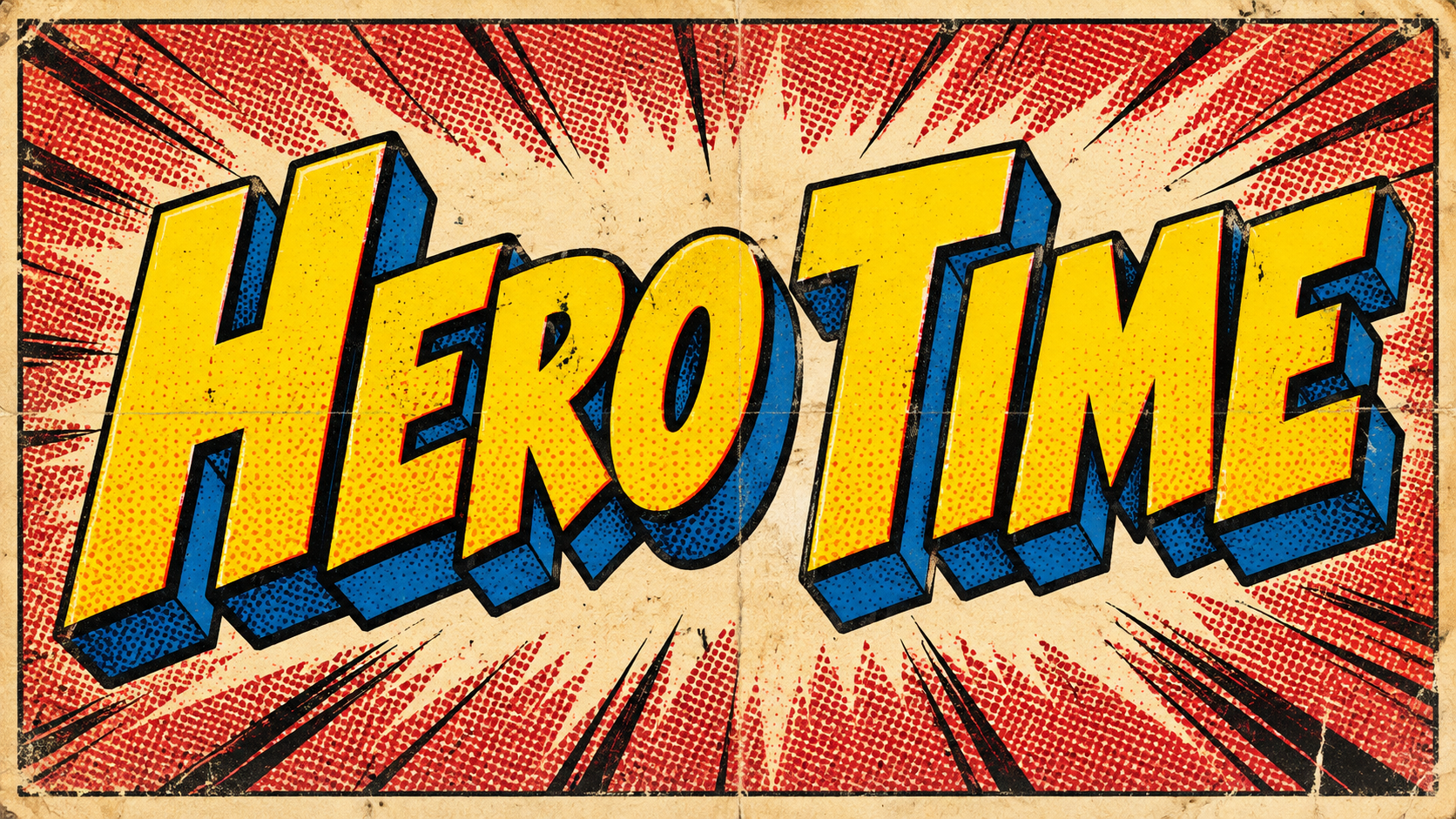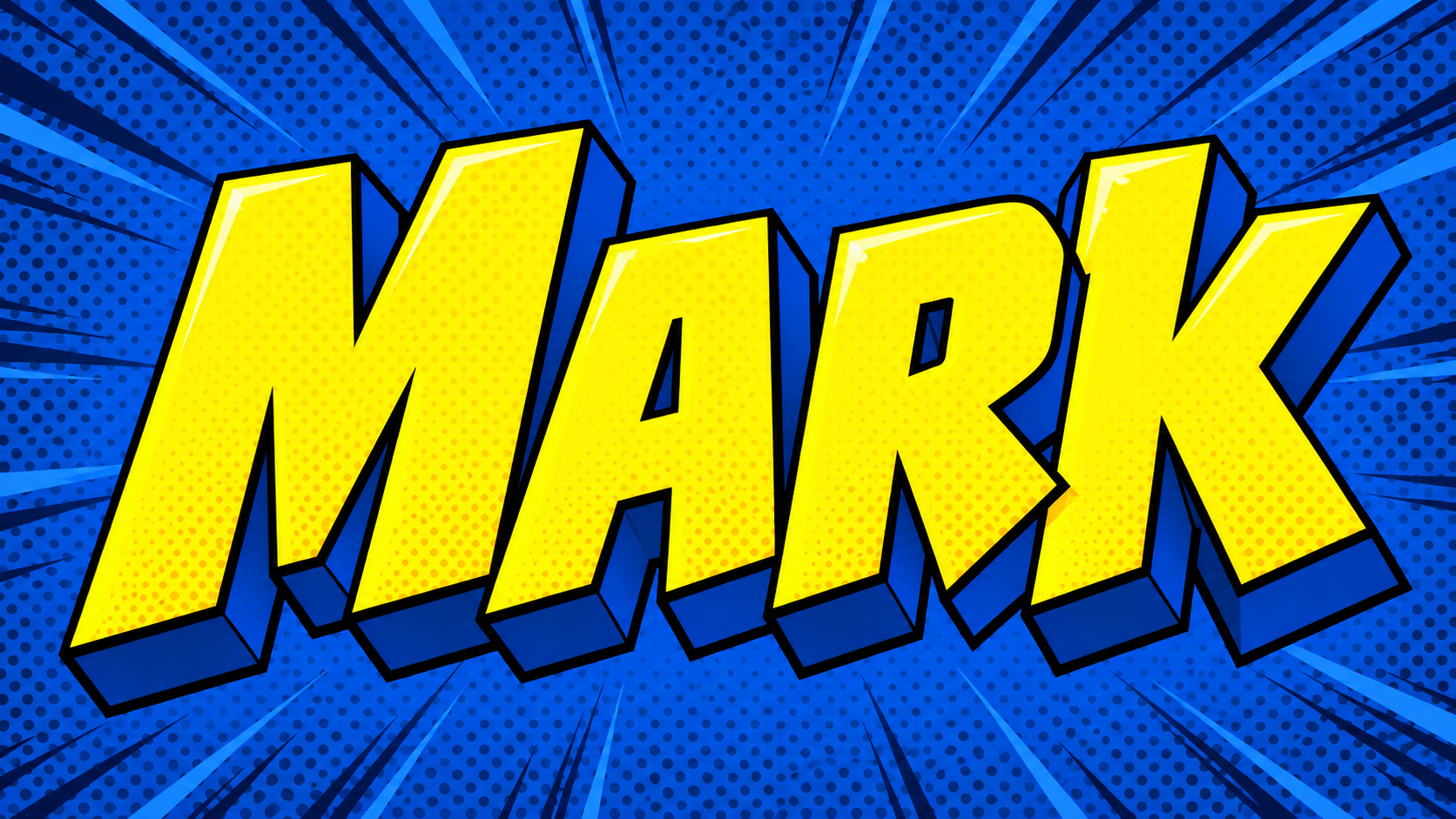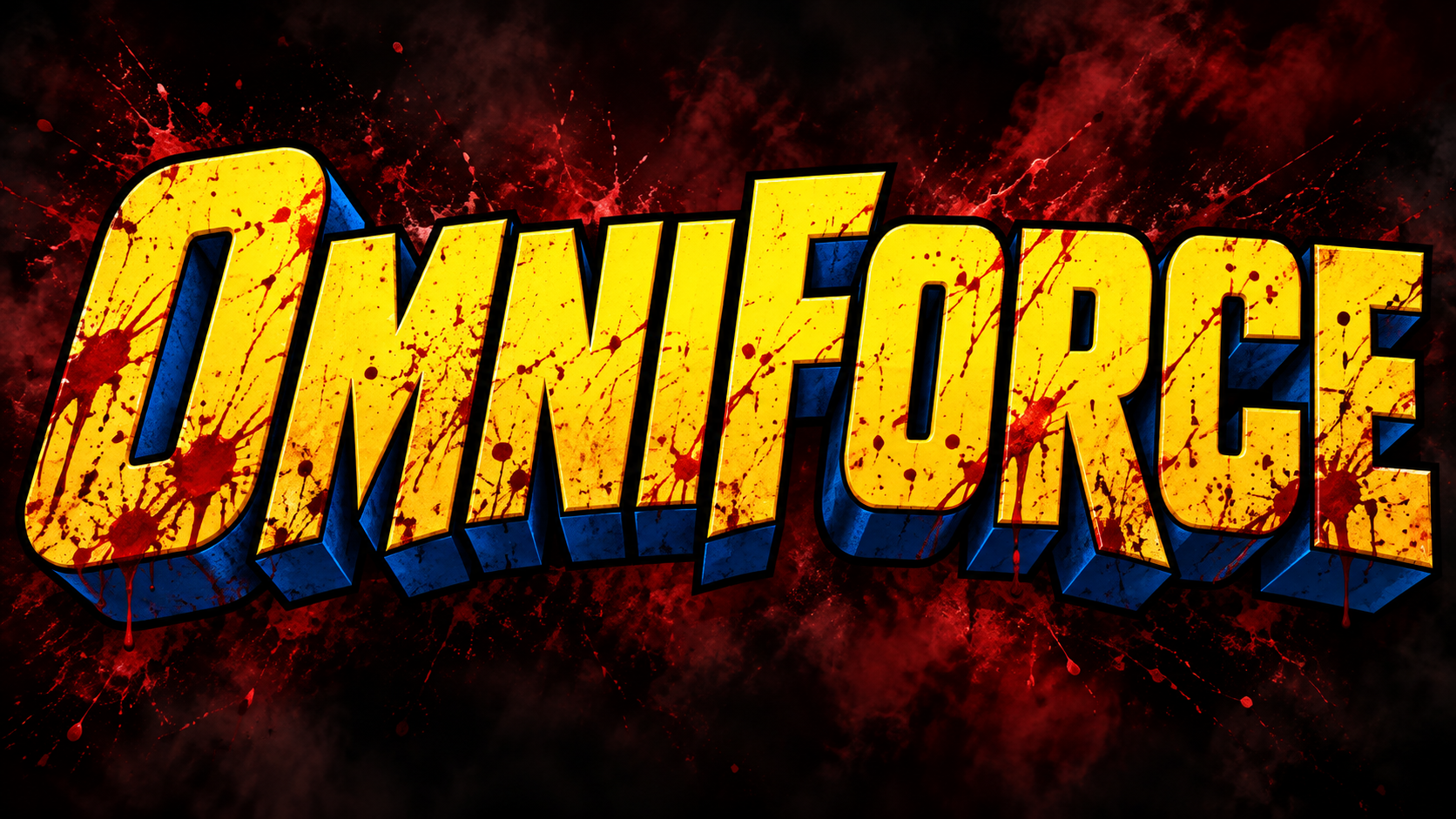
Invincible Font Generator
Blocky, tilted comic-hero capitals in yellow and blue, inspired by the animated series title. Fan-made.
The Invincible font that fans search for is the look of the series title card: heavy, blocky, slightly tilted capitals in bright yellow, backed by a deep blue extruded shadow and clean black outlines, with the energy of a comic-book splash page. Fontique does not host or reproduce that typeface or logo. Instead, our AI renders your own name or phrase in an original design inspired by that comic-hero visual language.
Type a word and pick a preset: the classic yellow-and-blue block, a blood-splattered variant for the darker side of the story, a halftone comic print, a chrome-armored version, or a clean animated-title treatment. Each is drawn fresh, so the result is a unique artwork rather than a font file.
No. Fontique does not provide the original typeface or reproduce the show logo. This is a fan-made generator that renders your text in an original comic-hero style inspired by the series title: blocky yellow capitals with a blue shadow. You receive a unique AI image, not a font file.